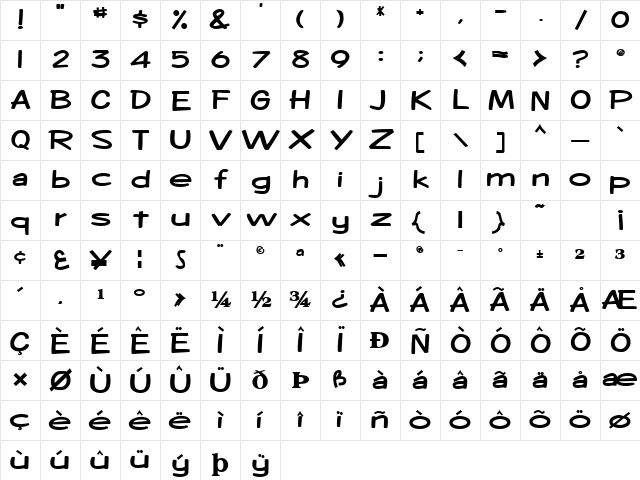
PinellasSSK Bold Free Font
PinellasSSK Bold
Design Context for PinellasSSK
PinellasSSK is a composed and adaptable typeface that performs quietly and consistently across a wide range of design contexts. Its bold stroke weight gives it real presence on the page.